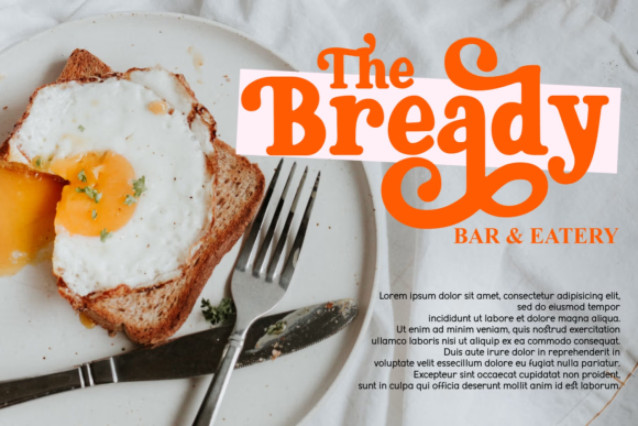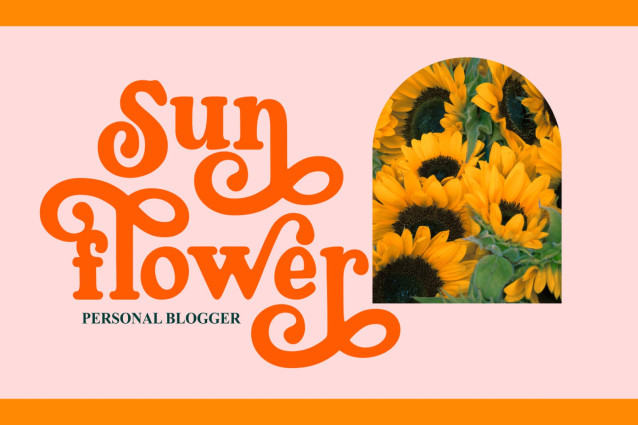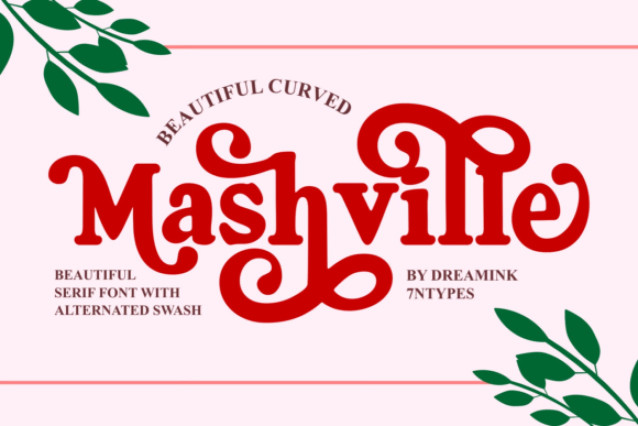
Mashville Font
Mashville is a casual serif font. Simple and easy to use, this font will be very beautiful if you mix it with your various craft designs. This font is PUA encoded which means you can access all of the glyphs and swashes with ease!
Mashville is a bold retro display serif font defined by its expressive, looping swashes and fluid, curved letterforms. It channels a warm, vintage aesthetic reminiscent of 1970s typography, combining thick, confident strokes with playful, rounded terminals and dramatic flourishes.
Use it for bakery and cafe branding, boutique fashion logos, retro-themed poster designs, wedding stationery, product packaging, and social media graphics. It is best suited for large display sizes, headlines, and wordmarks where its decorative, flowing details can take center stage.